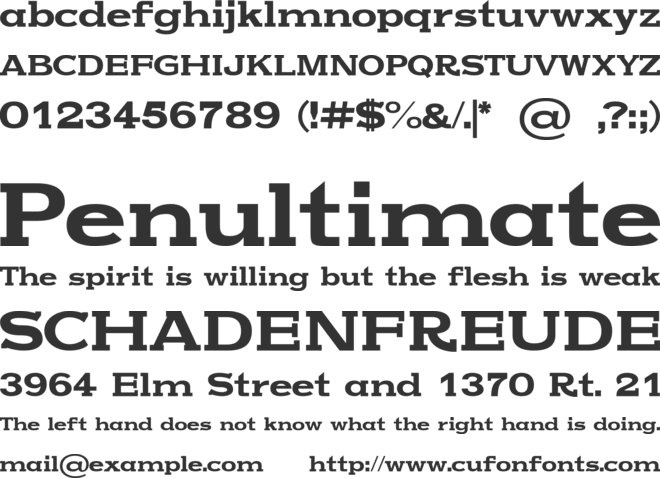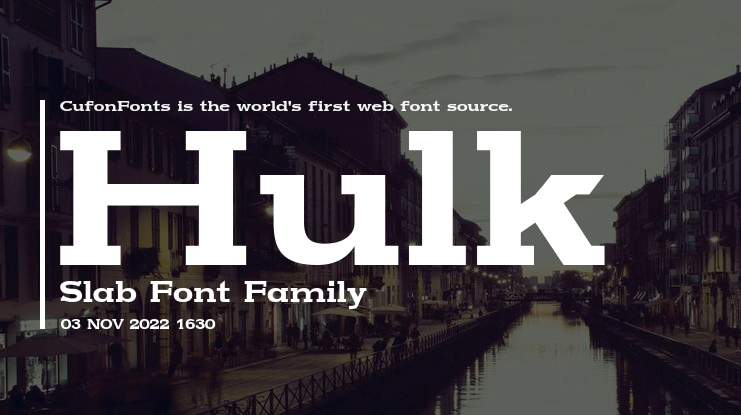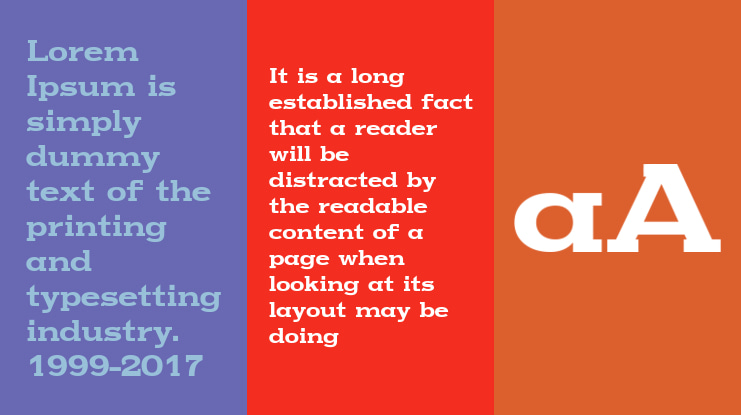
Hulk Slab Font Family
🎨 Font Name: Hulk by Minimalist Art Studio
🎨 Font description: Hulk is a bold slab serif collection with multilingual support—perfect for strong branding, retro packaging, and editorial impact.